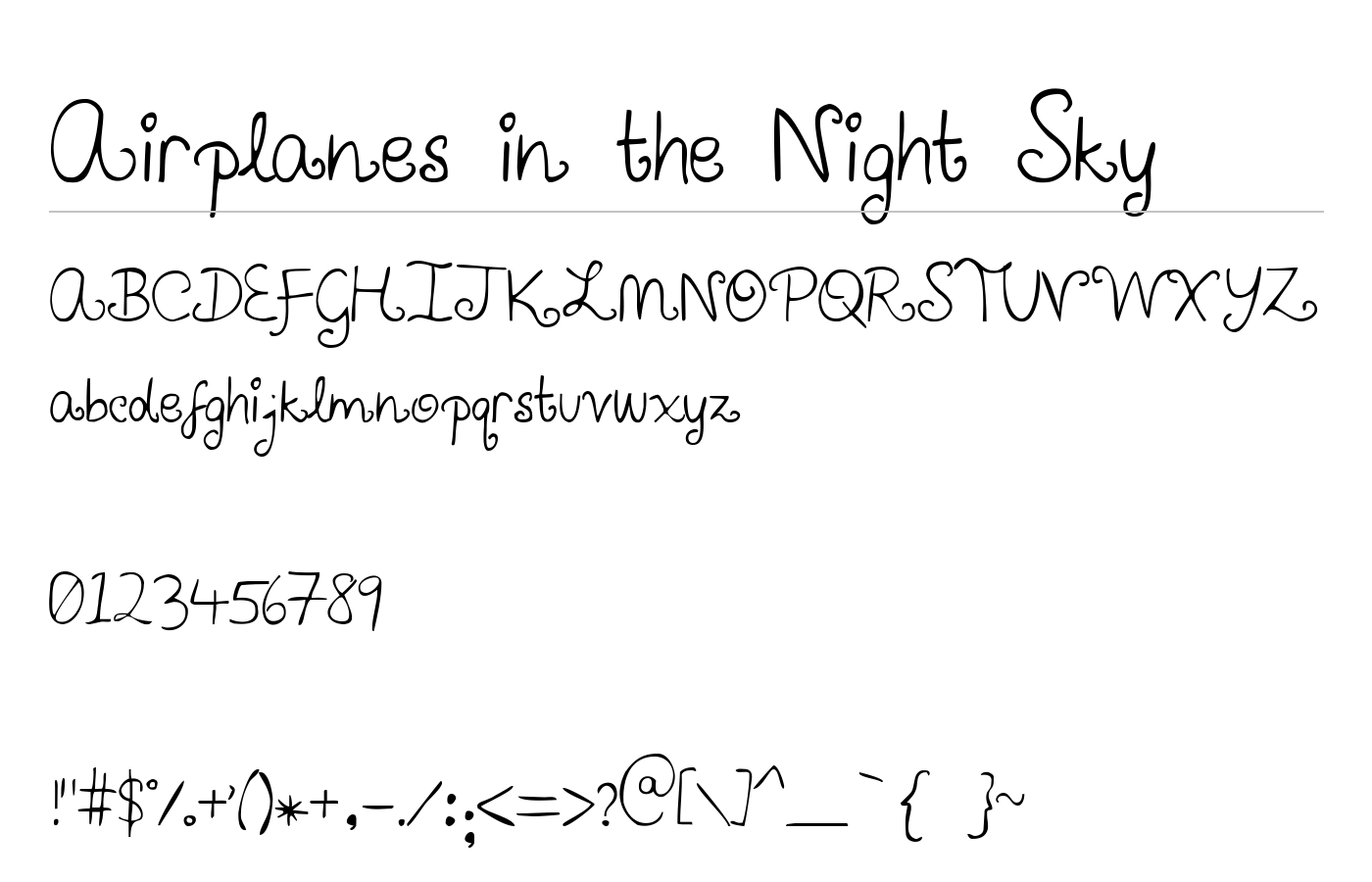
Airplanes in the Night Sky is a whimsical, hand-drawn script font that feels light and playful with its thin strokes and curly, looping details. Its airy letterforms and unique character shapes give it a charming, informal personality, making it perfect for creative projects, children’s designs, and casual branding that want a friendly and imaginative touch. This font works best in headlines, invitations, and artistic packaging where a handwritten, personal feel is desired.
Airplanes in the Night Sky Font
About Airplanes in the Night Sky Font
| Font family | Airplanes in the Night Sky Font |
| Designer | Kimberly Geswein |